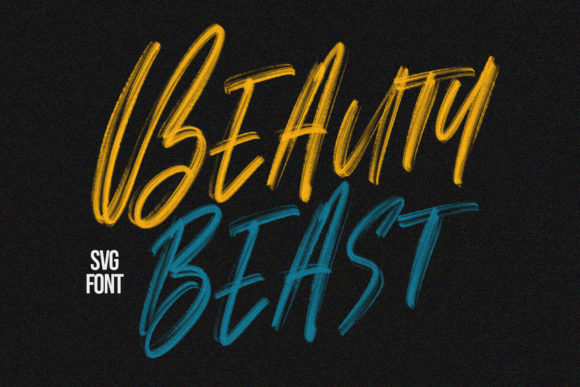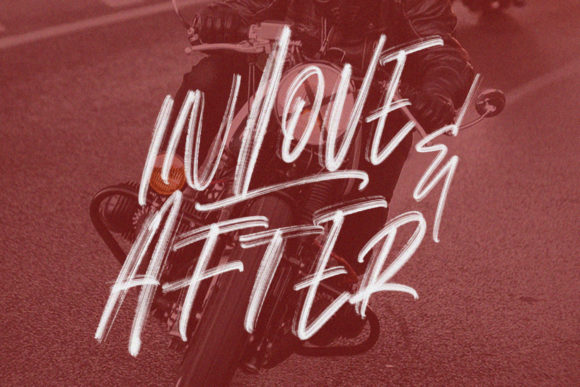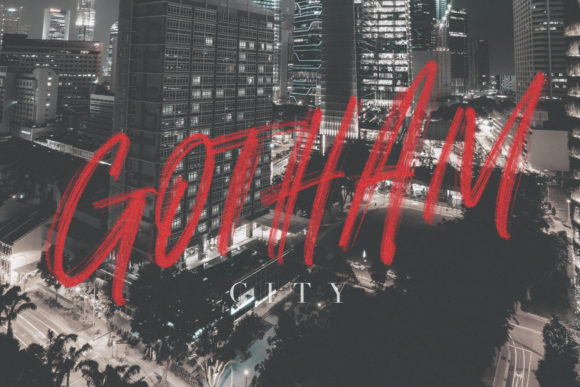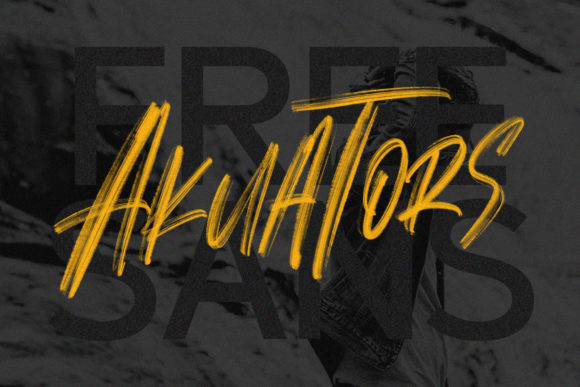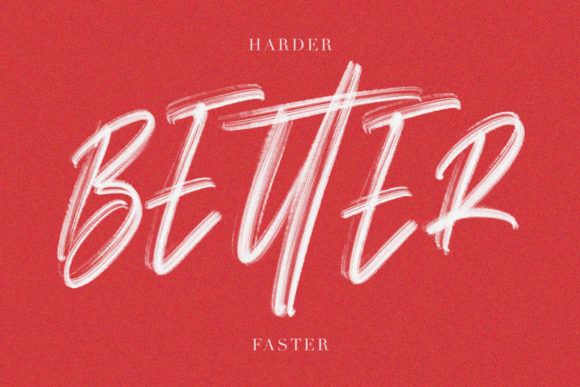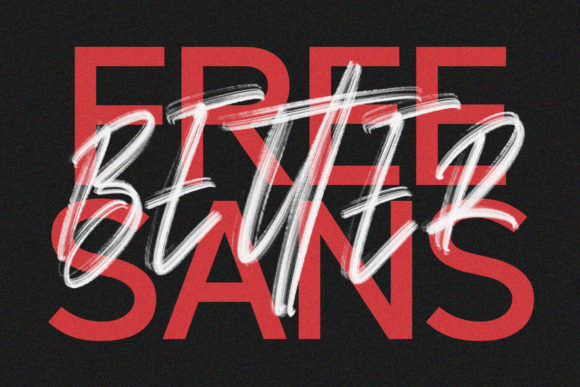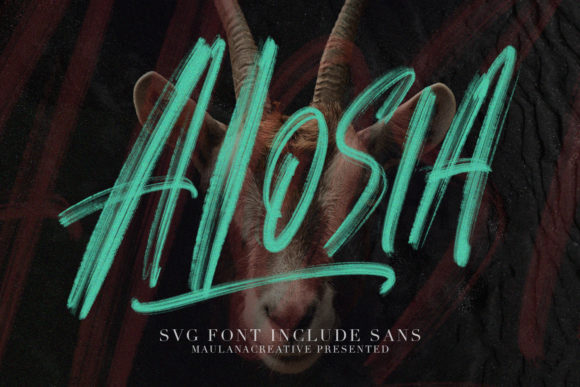
Introducing Alosia Font: The Perfect Blend of Fun and Clean Design
Are you on the hunt for a font that adds a touch of personality to your designs without compromising on readability? Look no further than Alosia Font, a casual fun display font that’s taking the design world by storm. Created by using a brush pen, Alosia boasts a clean and quirky aesthetic that’s perfect for a wide range of projects, from logos and branding to social media graphics and crafty DIY endeavors.
The Story Behind Alosia Font
Alosia Font is the brainchild of a talented designer who sought to create a typeface that captures the essence of hand-drawn charm. By using a brush pen, they were able to infuse the font with a sense of organic warmth and character. The result is a font that’s both clean and quirky, making it an excellent choice for designers looking to add a dash of personality to their work.
Key Features of Alosia Font
So, what sets Alosia Font apart from other display fonts on the market? Here are just a few of its key features:
- Clean and Legible: Despite its playful nature, Alosia Font remains remarkably clean and easy to read, making it perfect for use in a variety of contexts.
- Quirky Charm: The font’s hand-drawn origins give it a charming, laid-back vibe that’s sure to capture the attention of your audience.
- Versatile: Whether you’re working on a logo, social media graphic, or craft project, Alosia Font adapts effortlessly to different design requirements.
Alosia Font is an excellent choice for designers and crafters looking to add a touch of whimsy to their work. Here are just a few ways you can use this versatile font:
- Logo Design: Create a memorable brand identity with Alosia Font, perfect for businesses and personal projects alike.
- Social Media Graphics: Add a dash of personality to your social media posts and stories with Alosia Font, guaranteed to make your content stand out.
- Crafty DIY Projects: From handmade cards to DIY decor, Alosia Font is the perfect addition to any craft project requiring a personal touch.
- Branding: Develop a cohesive brand image with Alosia Font, ideal for use on packaging, business cards, and more.
Tips for Using Alosia Font Effectively
To get the most out of Alosia Font, here are a few expert tips:
- Mix and Match: Combine Alosia Font with other fonts to create a unique visual hierarchy that adds depth to your design.
- Play with Size: Experiment with different font sizes to emphasize certain words or phrases, adding emphasis to your message.
- Color It Right: Choose colors that complement the playful nature of Alosia Font, from bright and bold hues to softer pastels.
Alosia Font is more than just a display font – it’s a design solution that brings a fresh, playful vibe to any project. Its unique blend of clean lines and quirky charm makes it an excellent choice for designers and crafters looking to make their mark. Whether you’re creating logos, social media graphics, or DIY crafts, Alosia Font is sure to become your go-to typeface for adding a touch of personality to your designs.